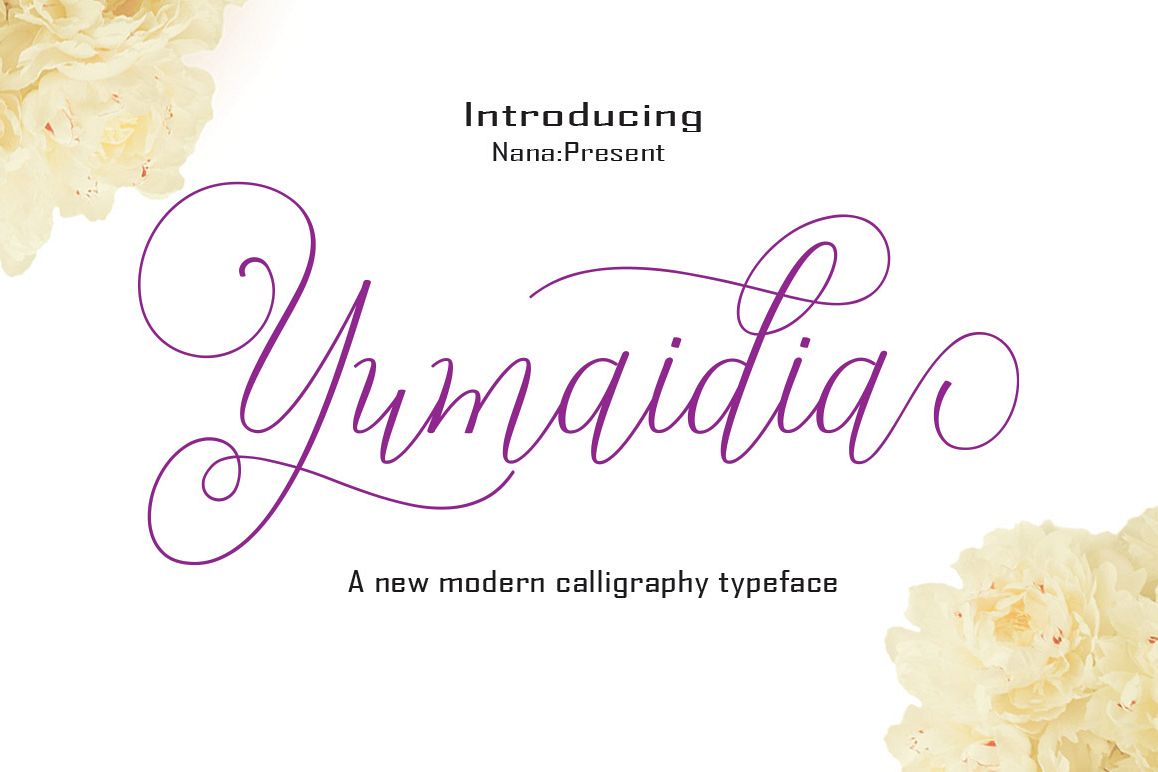
Yumaidia
Yumaidia Modern Calligraphy. This font was designed by handwriting, and it has a modern
and
unique forms of calligraphy, the writing style is very natural.
The Features of this fonts is;
* Standart ligatures
* Stylistic Alternates
* Contextual Alternates
* Stylistic sets
* Swash